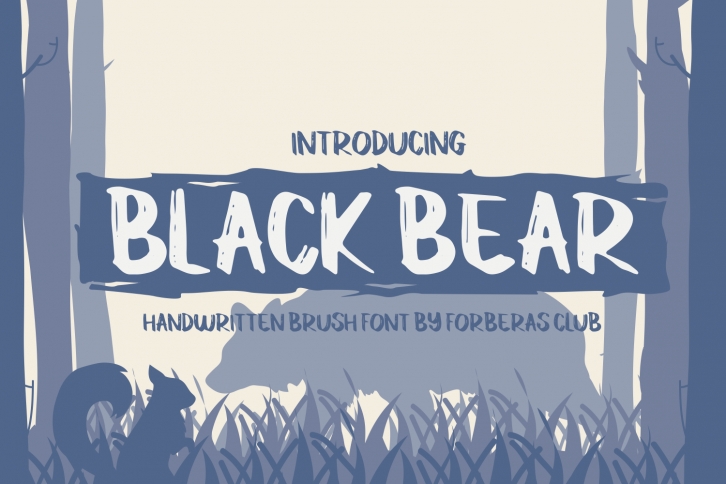
Black Bear is a cool and casual display font. Whether you’re using it for crafting, digital designing, presentations or greeting cards making, it’s perfect!Â